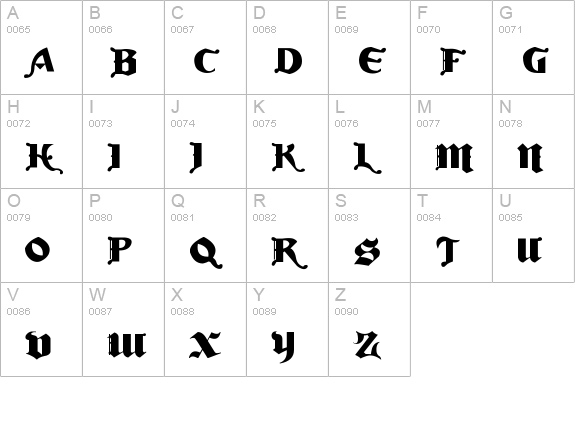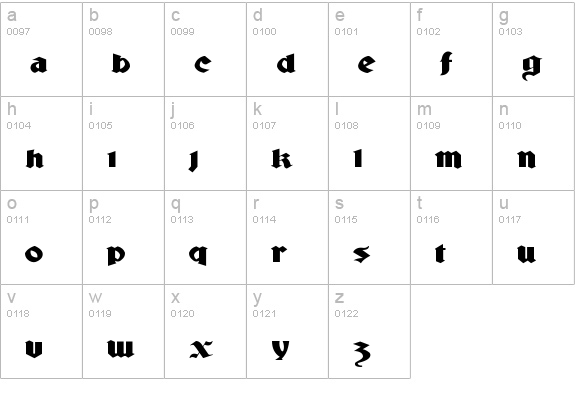
Ludlow Strong Ale Font Details
Ludlow Strong Ale font is a true masterpiece that embodies strength, elegance, and versatility. This stunning typeface is perfect for those seeking a bold and commanding presence in their designs. Whether you're creating a logo, poster, or packaging, Ludlow Strong Ale font will make a lasting impression. With its clean lines and powerful letterforms, Ludlow Strong Ale font exudes confidence and sophistication. The carefully crafted serifs give it a timeless appeal, while its bold strokes demand attention. This font is a true workhorse, capable of adapting to any project and delivering exceptional results. What sets Ludlow Strong Ale font apart is its incredible attention to detail. Each glyph is meticulously designed to ensure optimal legibility and visual impact. The letters flow effortlessly, creating a harmonious rhythm that is pleasing to the eye. This font truly captivates the viewer and leaves a lasting impression. And the best part? Ludlow Strong Ale font is freely available for download at FontsMarket.com. This means that you can unleash your creativity without any limitations. Whether you're a professional designer or a hobbyist, this font is yours to explore and experiment with. So why wait? Download Ludlow Strong Ale font today and unlock a world of possibilities. Whether you're designing for print or digital media, this font will elevate your work to new heights. It's time to make a statement and leave your mark with Ludlow Strong Ale font.